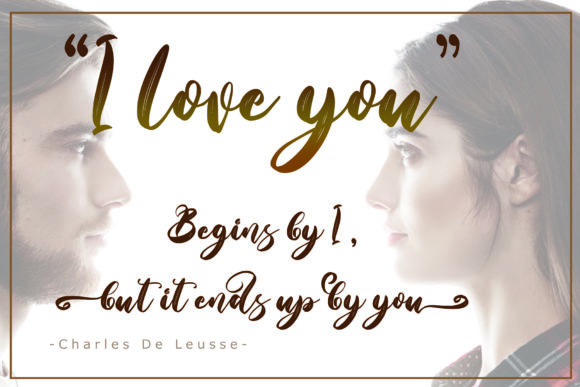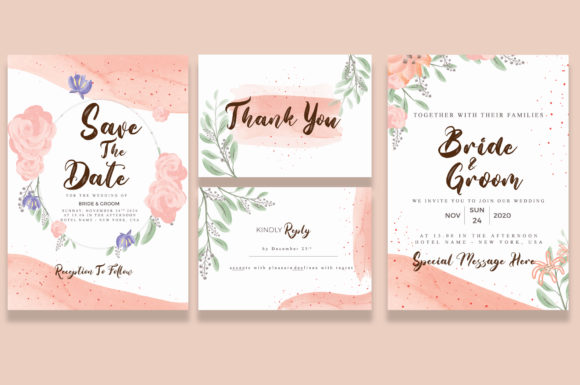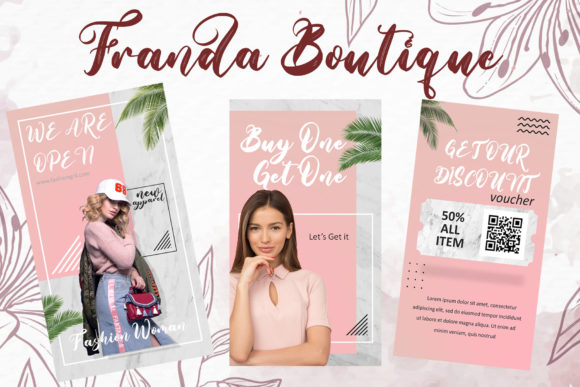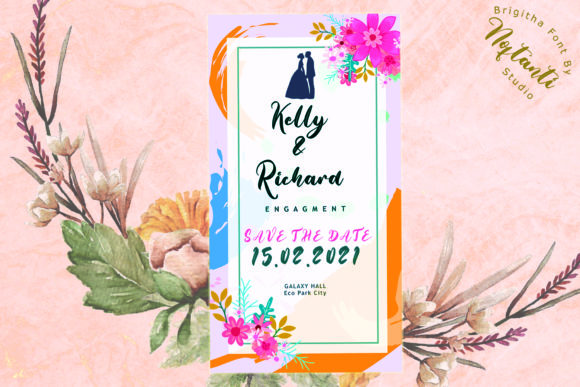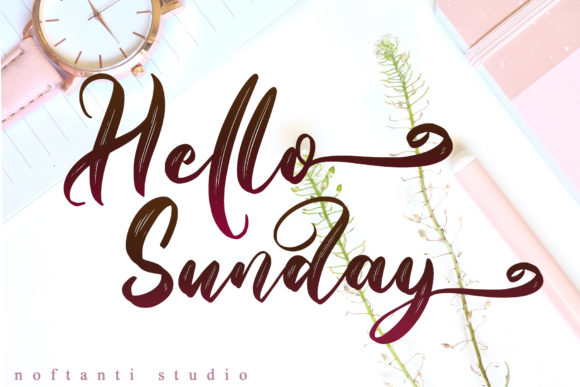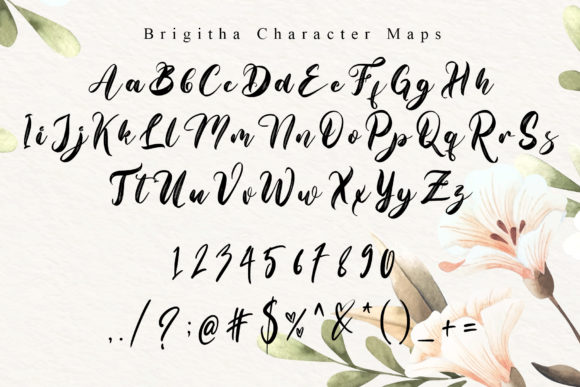
Discover the Elegance of Brigitha Font: A Refined Cursive Handwritten Font
In the world of typography, a font can make or break a design. For designers and crafters, finding the perfect font that combines elegance, versatility, and uniqueness is a constant quest. If you’re on the lookout for a font that can elevate your designs, look no further than Brigitha Font. This refined, all-round, and cursive handwritten font is a gem that can match a wide pool of designs, making it a valuable addition to your typographic arsenal.
What Makes Brigitha Font Stand Out?
Brigitha Font boasts beautiful and well-balanced characters that exude elegance and sophistication. Its cursive handwritten style is perfect for adding a touch of warmth and personality to your designs. Whether you’re working on a branding project, a wedding invitation, or a digital product, Brigitha Font is sure to impress. The font’s refined features make it suitable for a variety of applications, from formal events to casual, creative projects.
The Power of PUA Encoding
One of the standout features of Brigitha Font is its PUA (Private Use Area) encoding. This means that you can access all of the glyphs and swashes with ease, giving you unparalleled creative control over your designs. PUA encoding allows you to unlock the full potential of the font, enabling you to create unique and intricate designs that showcase your creativity. With Brigitha Font, you can experiment with different glyphs and swashes to add a personal touch to your projects.
Brigitha Font is an all-round font that can match a wide pool of designs. Its versatility makes it perfect for various design applications, including:
- Branding: Use Brigitha Font to create a cohesive brand identity that exudes elegance and sophistication.
- Wedding and Event Design: Add a touch of romance and whimsy to your wedding invitations, save-the-dates, and event materials.
- Digital Products: Use Brigitha Font to create visually appealing digital products, such as e-books, workbooks, and planners.
- Stationery: Elevate your stationery designs, including business cards, letterheads, and envelopes.
Why Designers and Crafters Love Brigitha Font
Designers and crafters love Brigitha Font for its unique combination of elegance, versatility, and creative freedom. Here are a few reasons why:
- High-Quality Design: The font is meticulously designed to ensure that every character is of the highest quality.
Tips for Getting the Most Out of Brigitha Font
To get the most out of Brigitha Font, here are a few tips:
- Experiment with Glyphs and Swashes: Take advantage of the font’s PUA encoding to experiment with different glyphs and swashes.
- Mix and Match: Combine Brigitha Font with other fonts to create a unique and visually appealing design.
- Pay Attention to Kerning: Adjust the kerning to ensure that the font looks balanced and harmonious.
Brigitha Font is a refined, all-round, and cursive handwritten font that is sure to elevate your designs. With its beautiful and well-balanced characters, PUA encoding, and versatility, it’s a valuable addition to any designer’s or crafter’s typographic arsenal. Whether you’re working on a branding project, a wedding invitation, or a digital product, Brigitha Font is the perfect choice. So why wait? Discover the elegance of Brigitha Font today and take your designs to the next level!